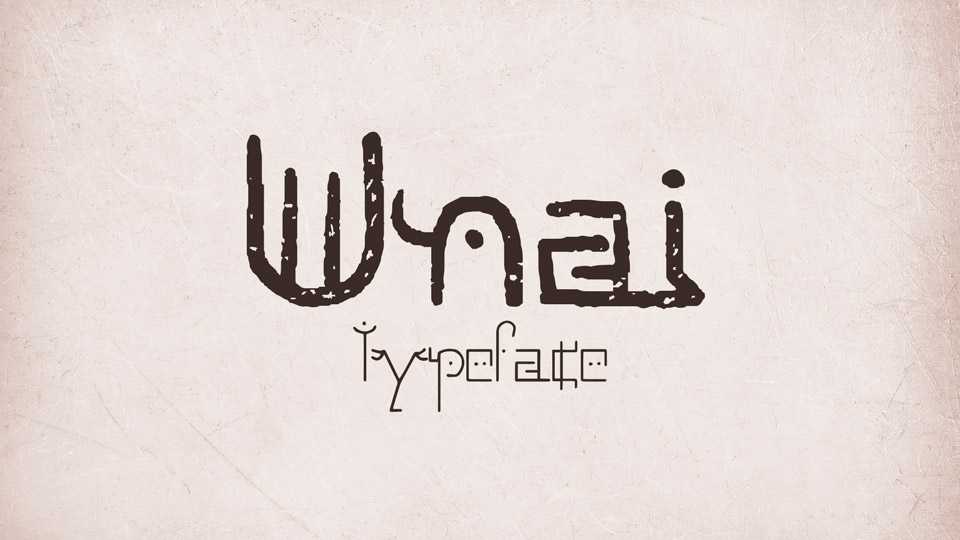
Download Unai font family, a rustic and very beautiful typeface, with a good amount of possible applications. Unai typeface comes in three styles. Native is the initial, textured version.